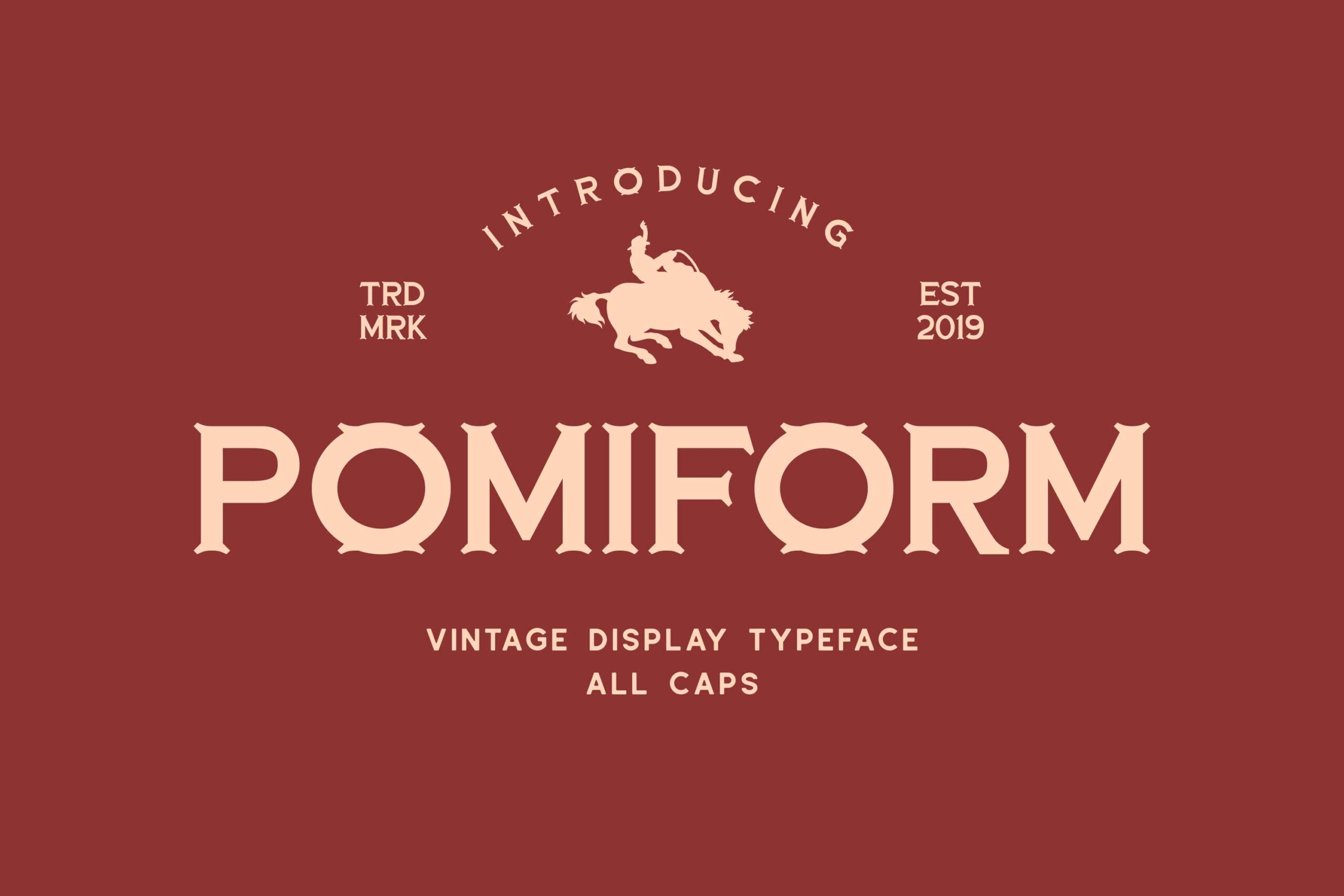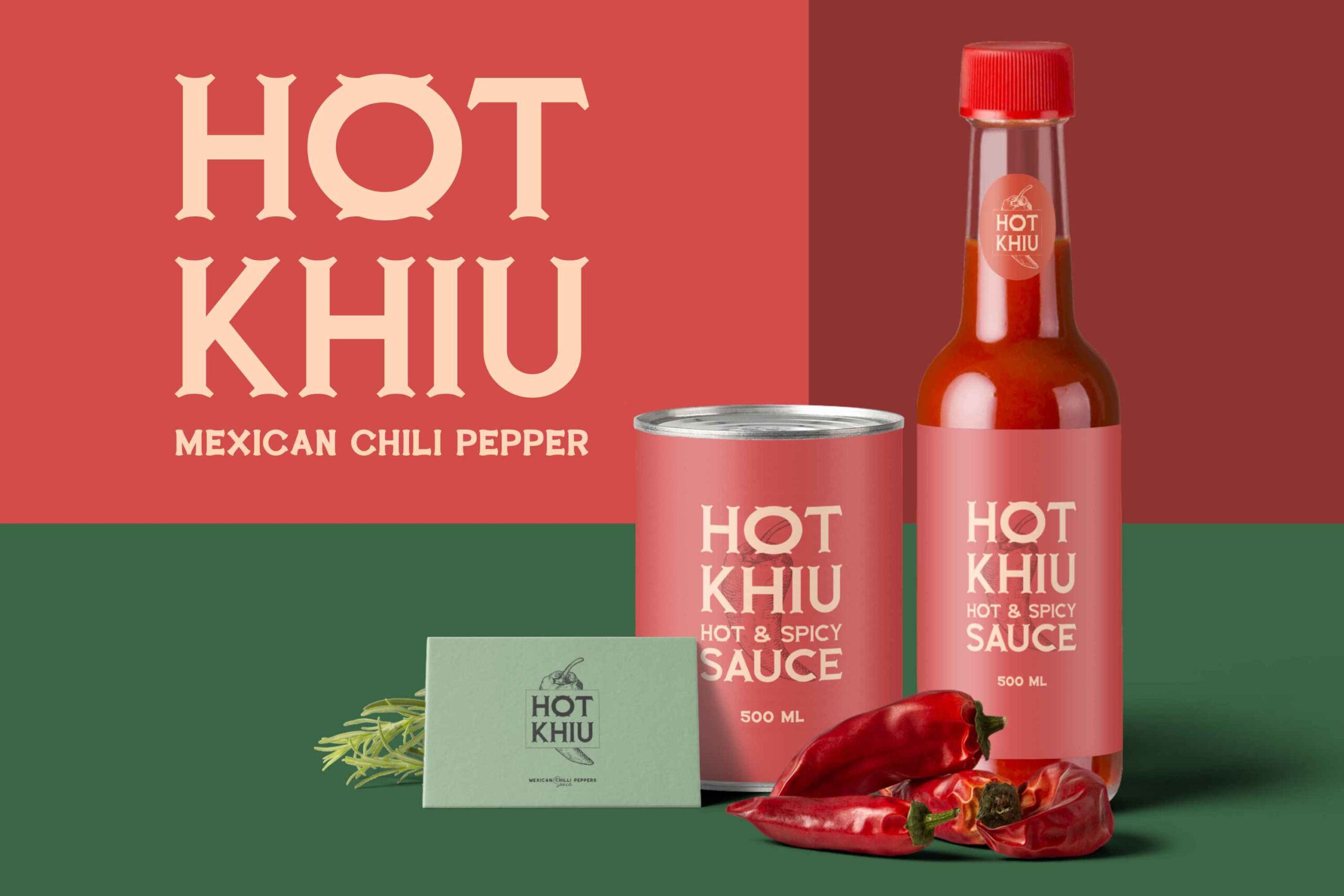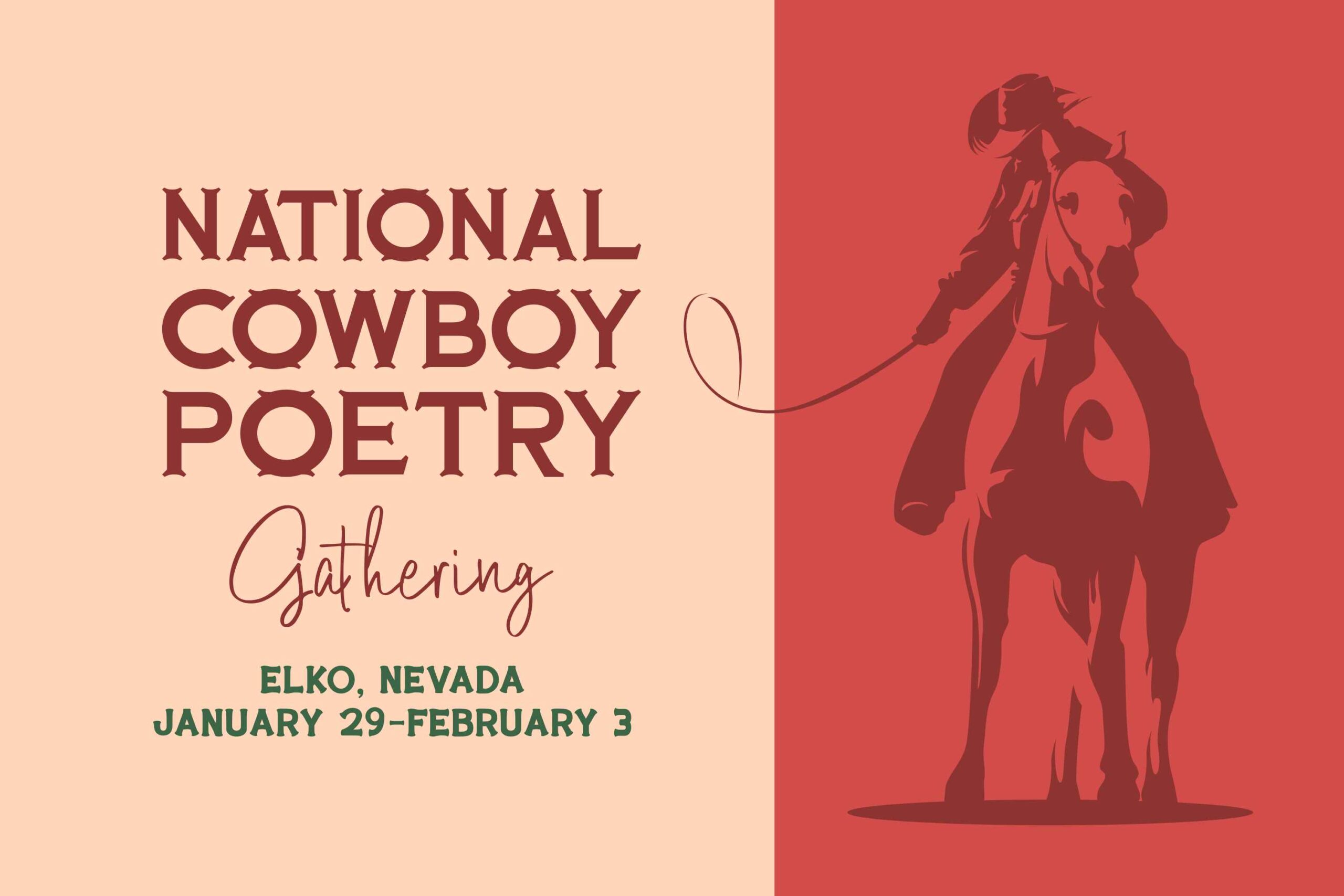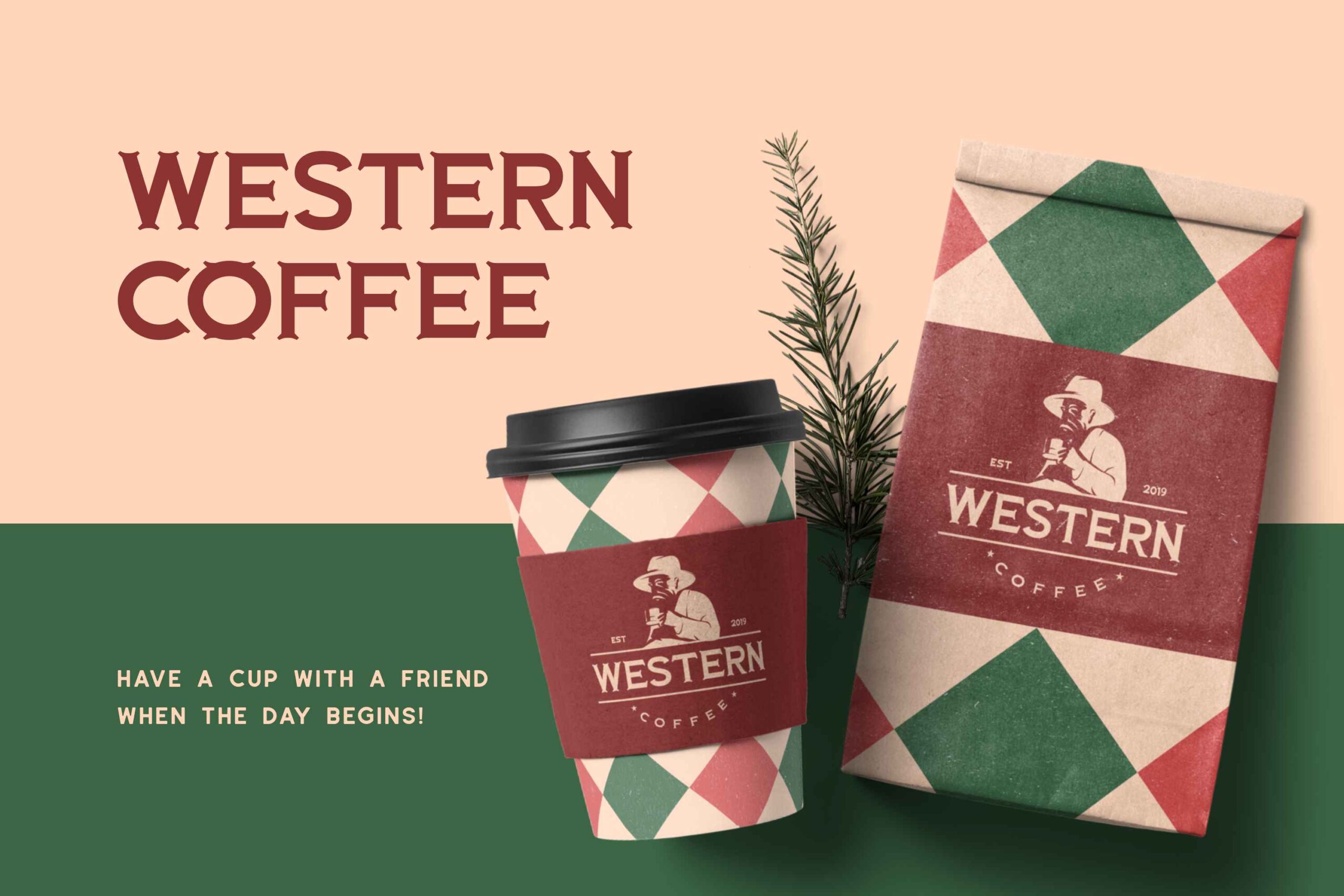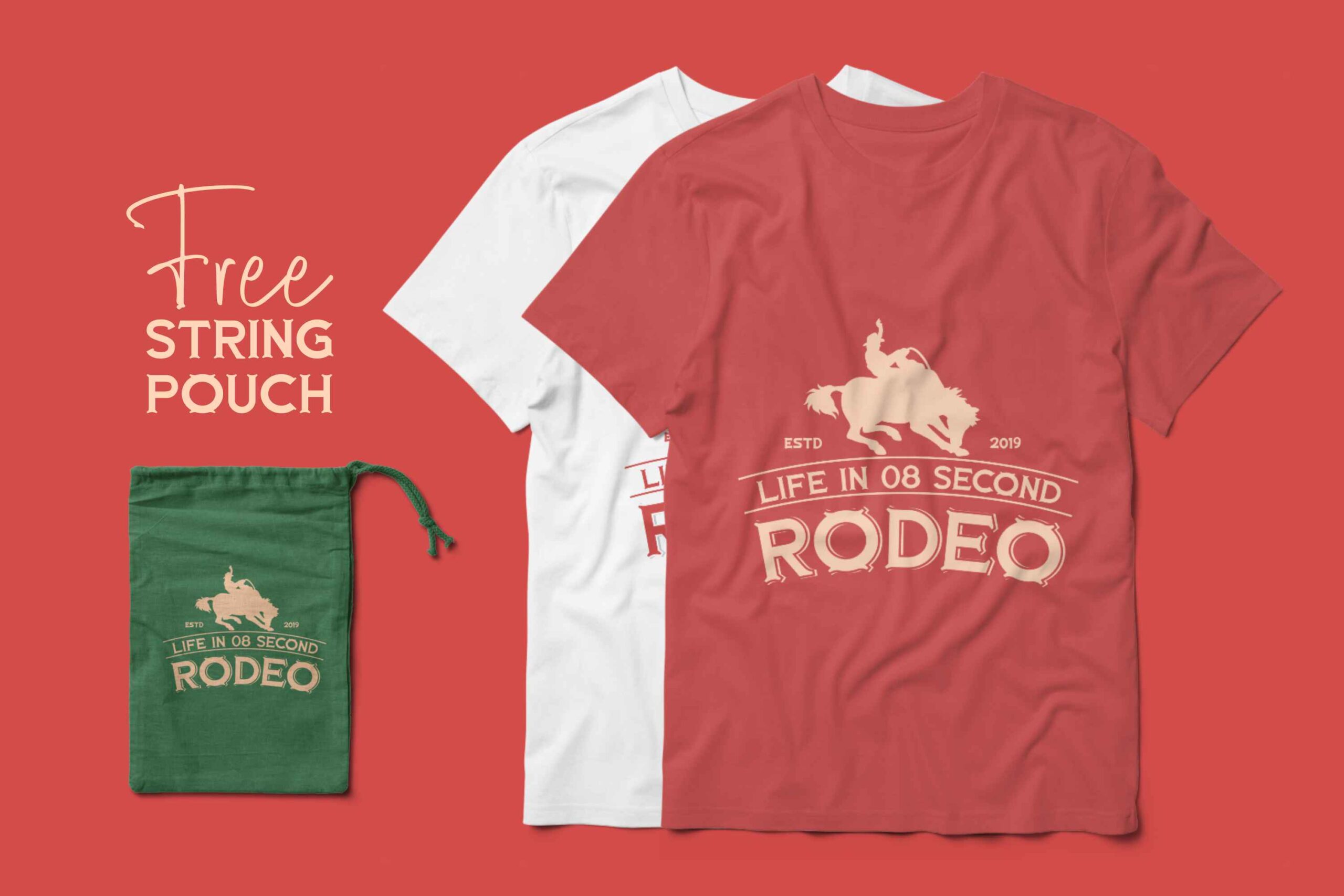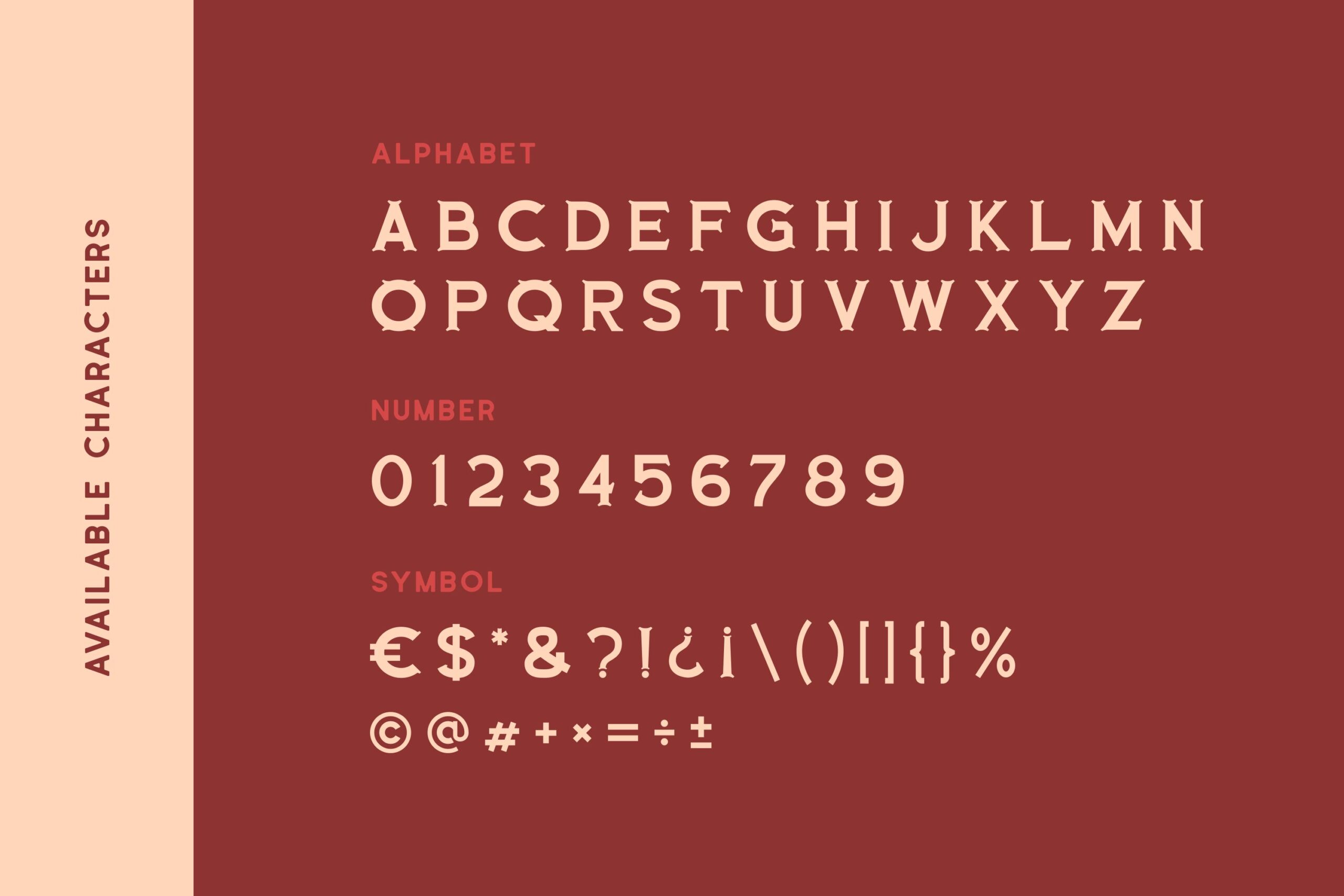
Pomiform
Pomiform is a vintage all-caps display typeface that blends western charm with bold, decorative letterforms. Featuring unique circular terminals and sharp serifs, this font brings a rugged yet elegant character, making it perfect for designs inspired by cowboy culture, rodeo posters, and old-style branding. Its strong presence ensures every word stands out with authenticity and style.
Ideal for logos, packaging, coffee branding, apparel, posters, and product labels, Pomiform captures the essence of retro western aesthetics with a modern usability twist. Whether you’re creating rustic food packaging, rodeo merchandise, or nostalgic editorial titles, Pomiform delivers a timeless display look that elevates your creative projects.